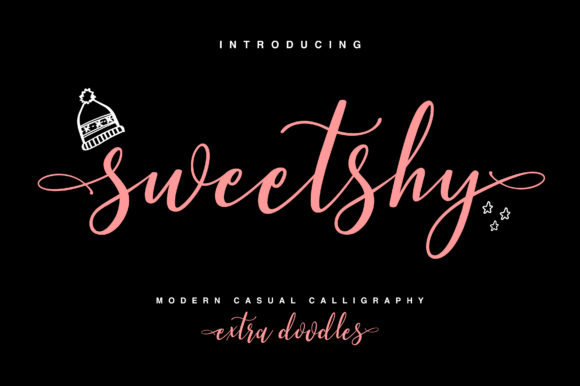
Indulge in the realm of Sweetshy, a script font that dances across your designs with a captivating allure. Every curve and stroke embodies the essence of elegance, inviting you to express yourself with a touch of playful sophistication.
Crafted by the creative genius of Maulana Creative, Sweetshy stands tall as an exceptional choice for those who seek fonts with an air of distinction. Its calligraphic roots lend an aura of timeless beauty, while its contemporary flair infuses your creations with a vibrant zest.
With Sweetshy, you'll find endless possibilities to paint your digital canvas. Its versatility knows no bounds, whether you're crafting enchanting Instagram captions, adding a touch of whimsy to your blog posts, or designing breathtaking visuals that captivate every eye.
Prepare to fall head over heels in love as Sweetshy transforms your projects into masterpieces. Its exquisite form will elevate your designs to new heights, leaving an unforgettable impression on all who behold them. Embrace the charm of Sweetshy and unleash your creativity like never before!